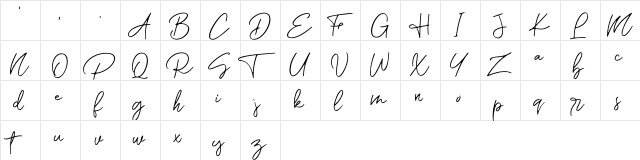
Romantic Couple Script Regular
Design Context for Romantic Couple Script Typeface
Romantic Couple Script brings a calligraphic fluidity to the page — its connecting strokes and expressive curves give it an unmistakably human quality.
Font Pairing: Combine Romantic Couple Script with a simple geometric sans for maximum contrast — the tension between flowing curves and clean structure is a classic typographic pairing.
Pro Tip: Use Romantic Couple Script for short runs of text — names, titles, or taglines. Extended body copy in script faces tires the eye quickly.